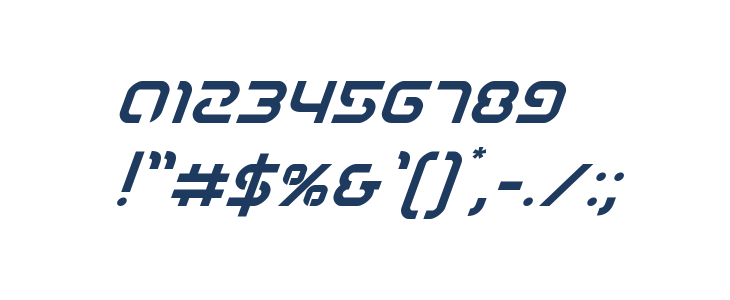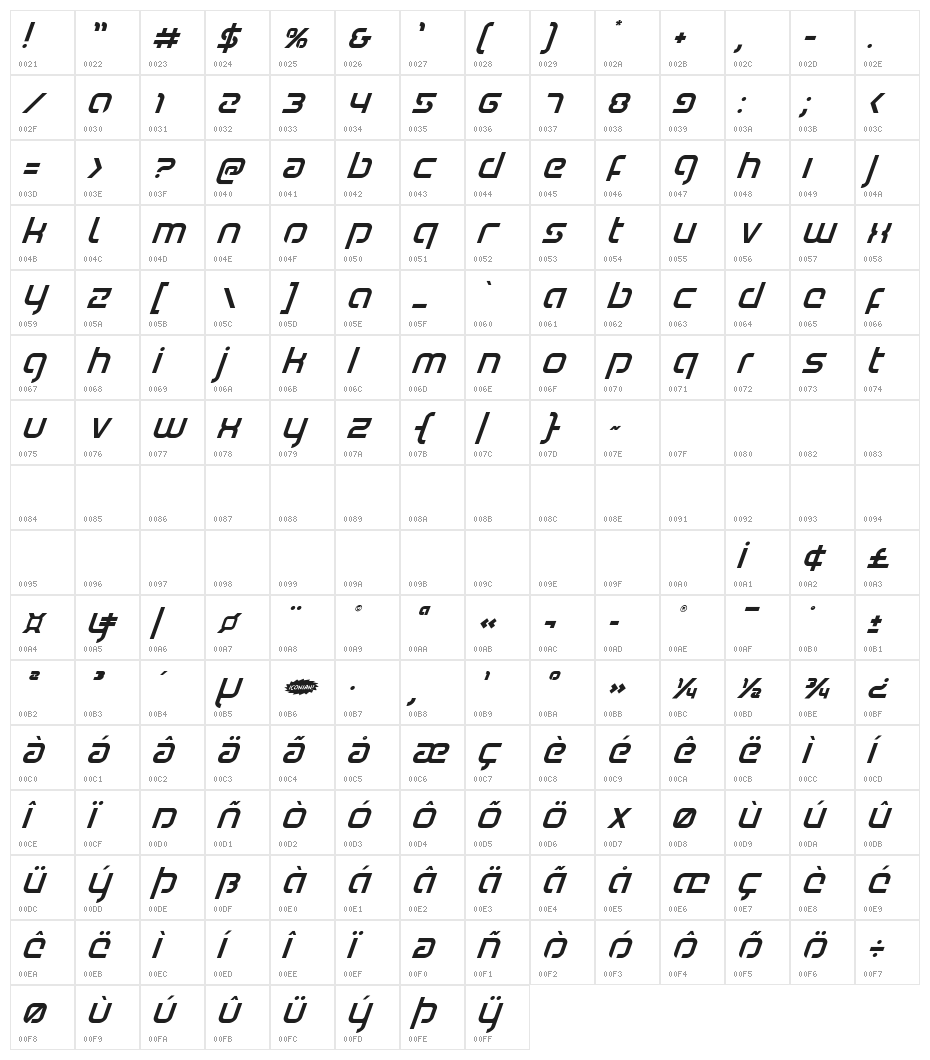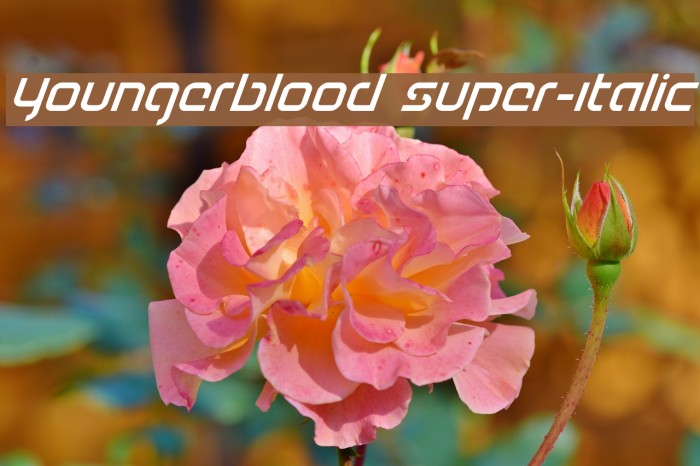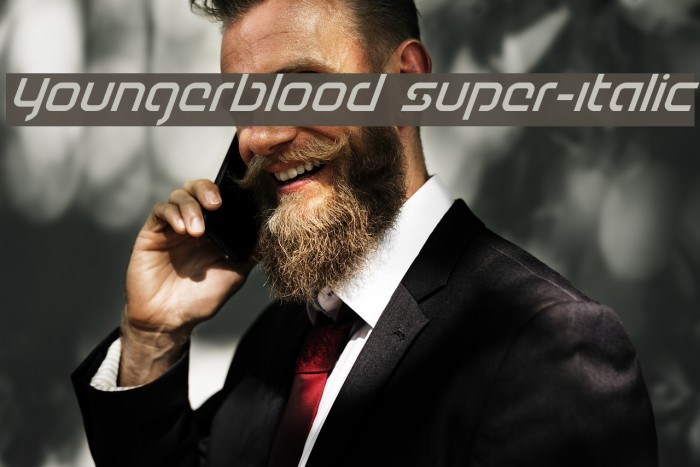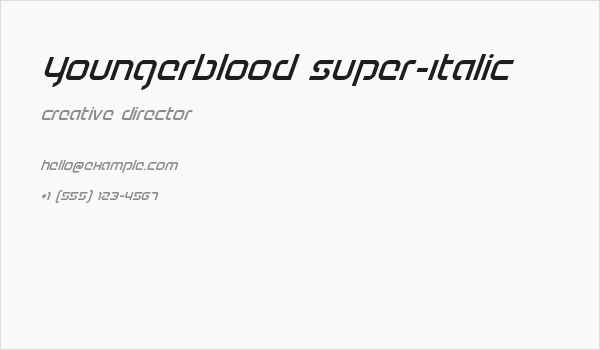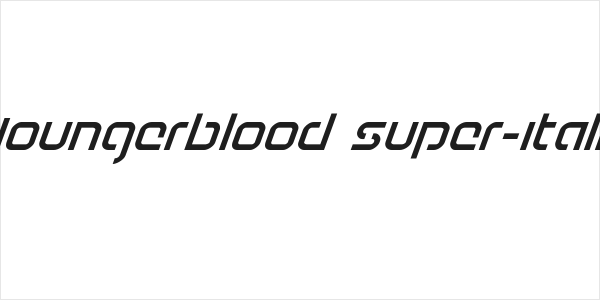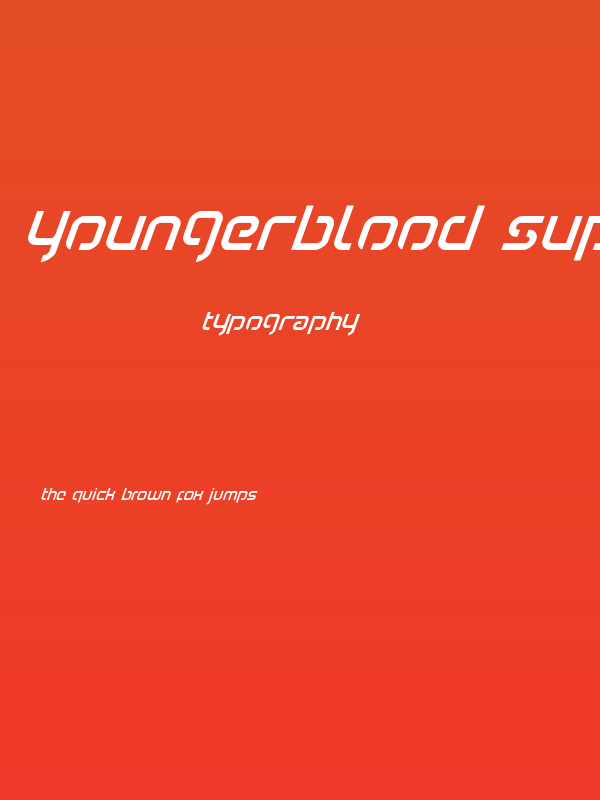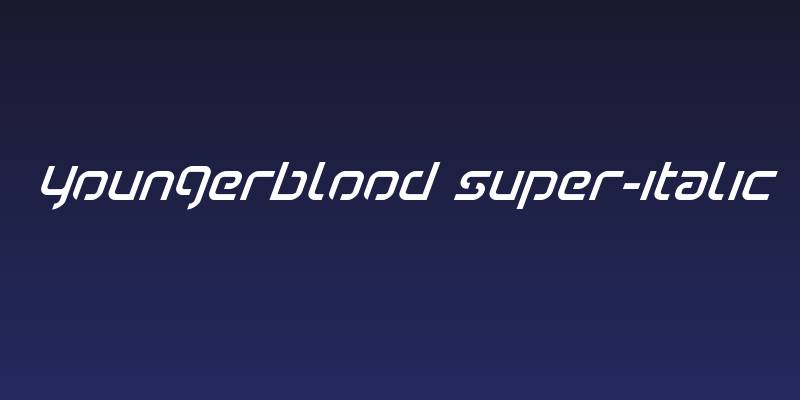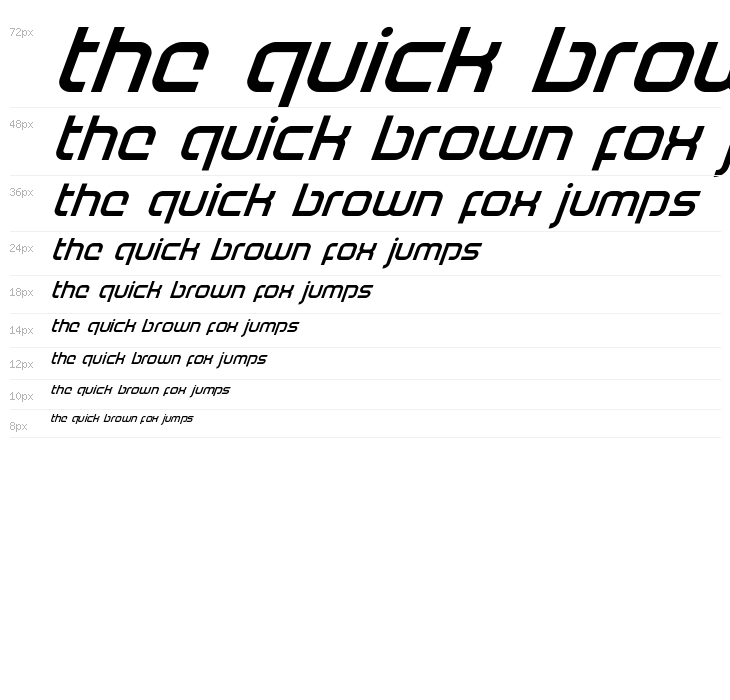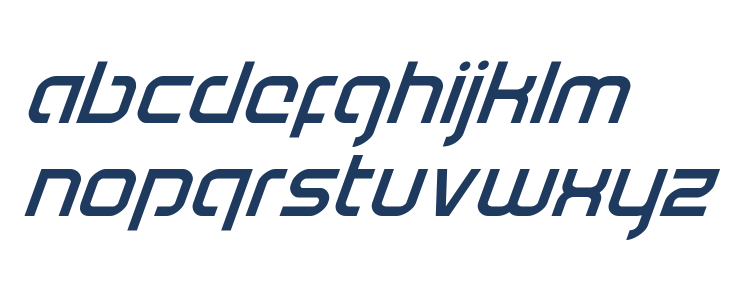
Youngerblood Super-Italic Font
Youngerblood Super-Italic Description
This font features a dynamic and modern italic style with a futuristic flair. The characters are slightly slanted, giving a sense of movement and speed. The strokes are bold and consistent, with a geometric influence that adds a sleek and streamlined appearance. The uppercase and lowercase letters maintain a uniform height, contributing to a cohesive look. The numerals and special characters are designed to match the overall aesthetic, ensuring versatility across different uses. The font's unique style makes it suitable for projects that require a contemporary and energetic feel.
| Proposed Projects | Ideal for branding, sports team logos, tech-related designs, and dynamic posters. |